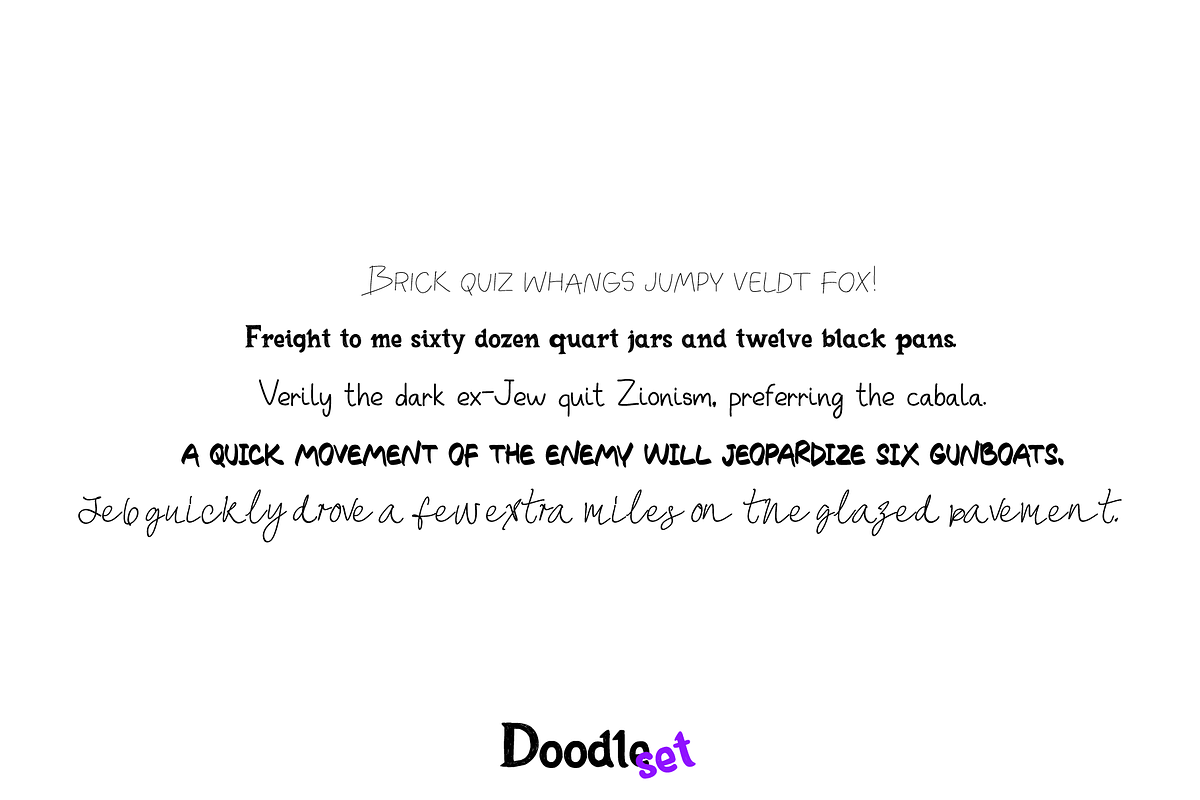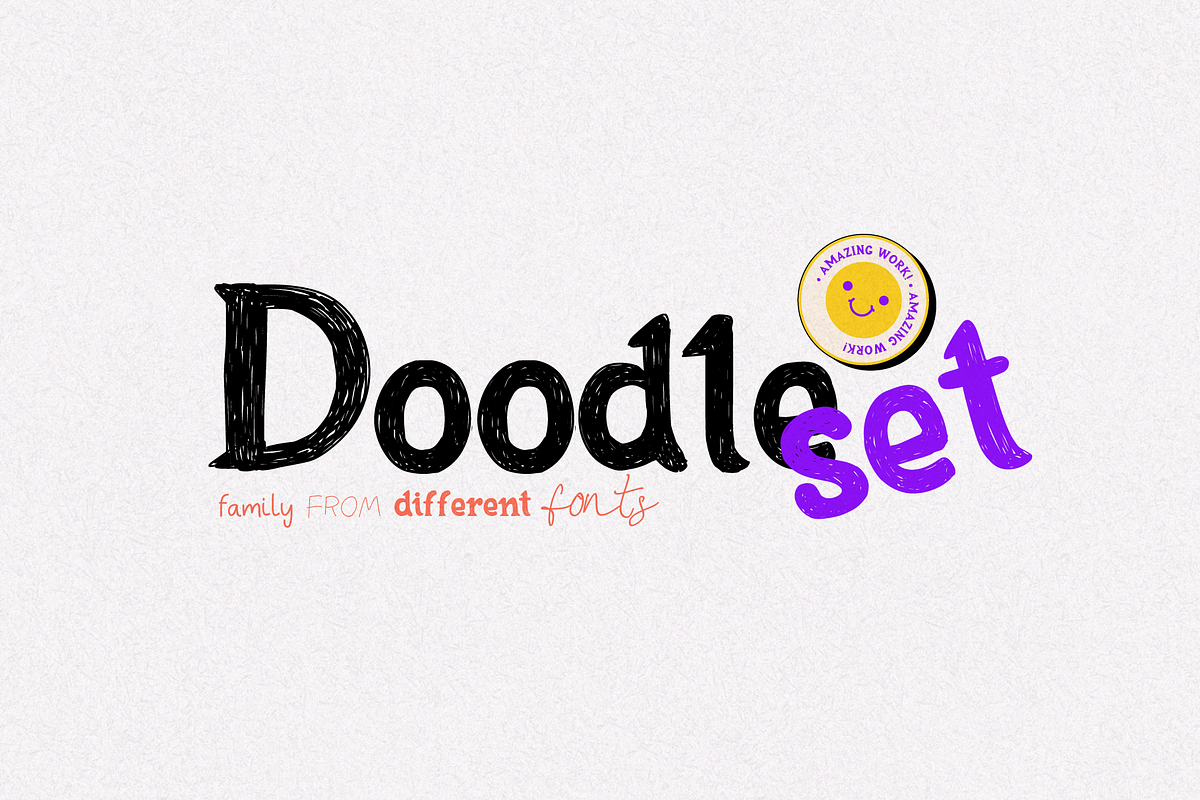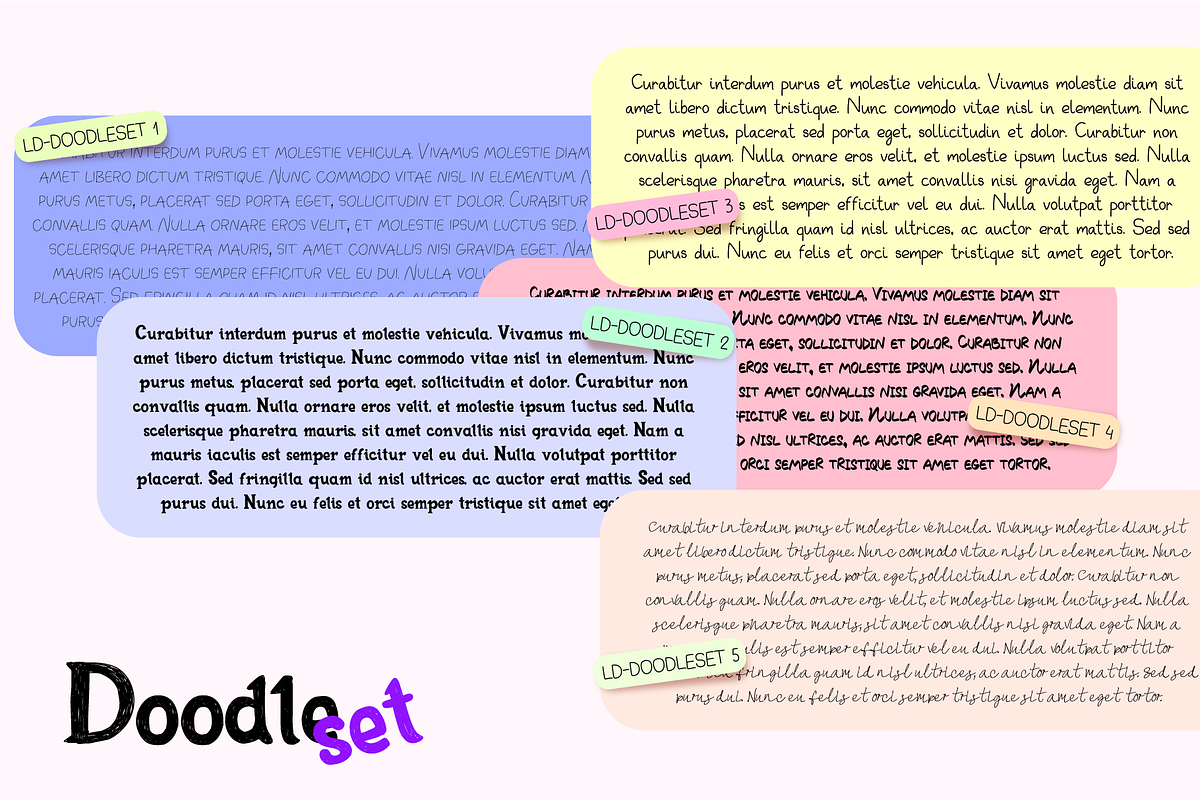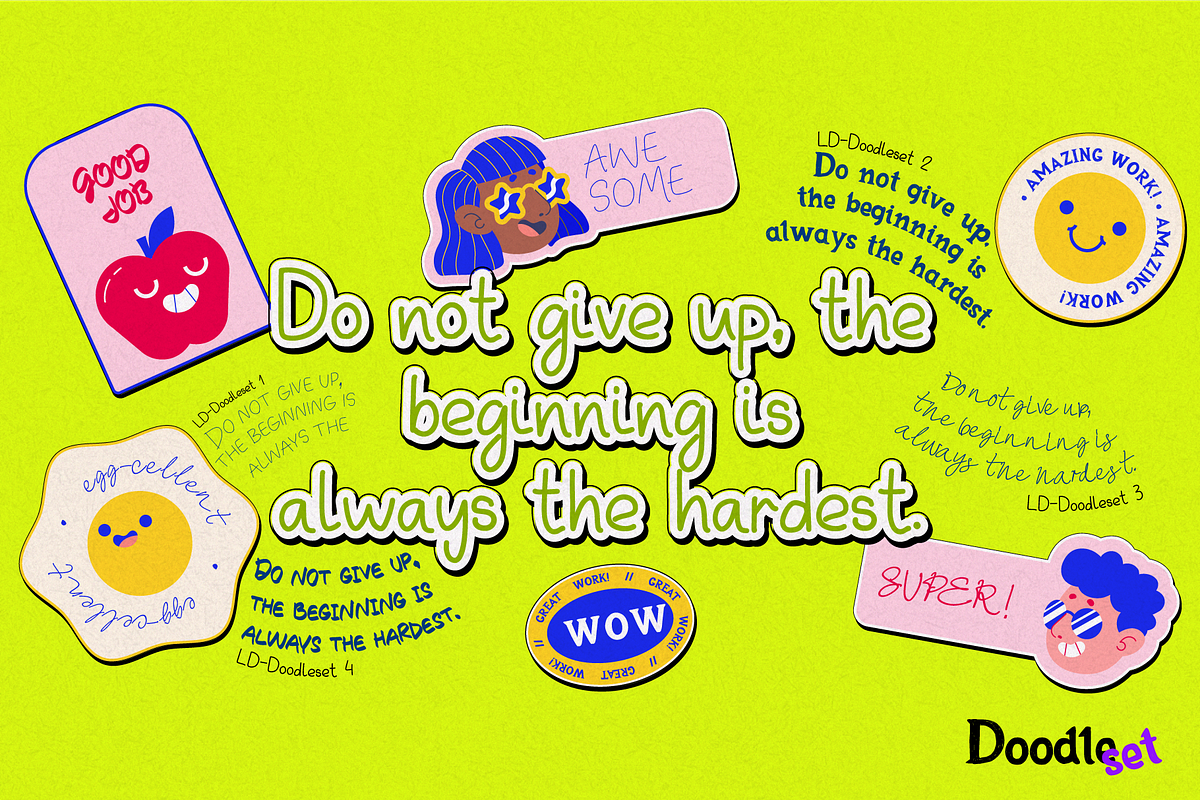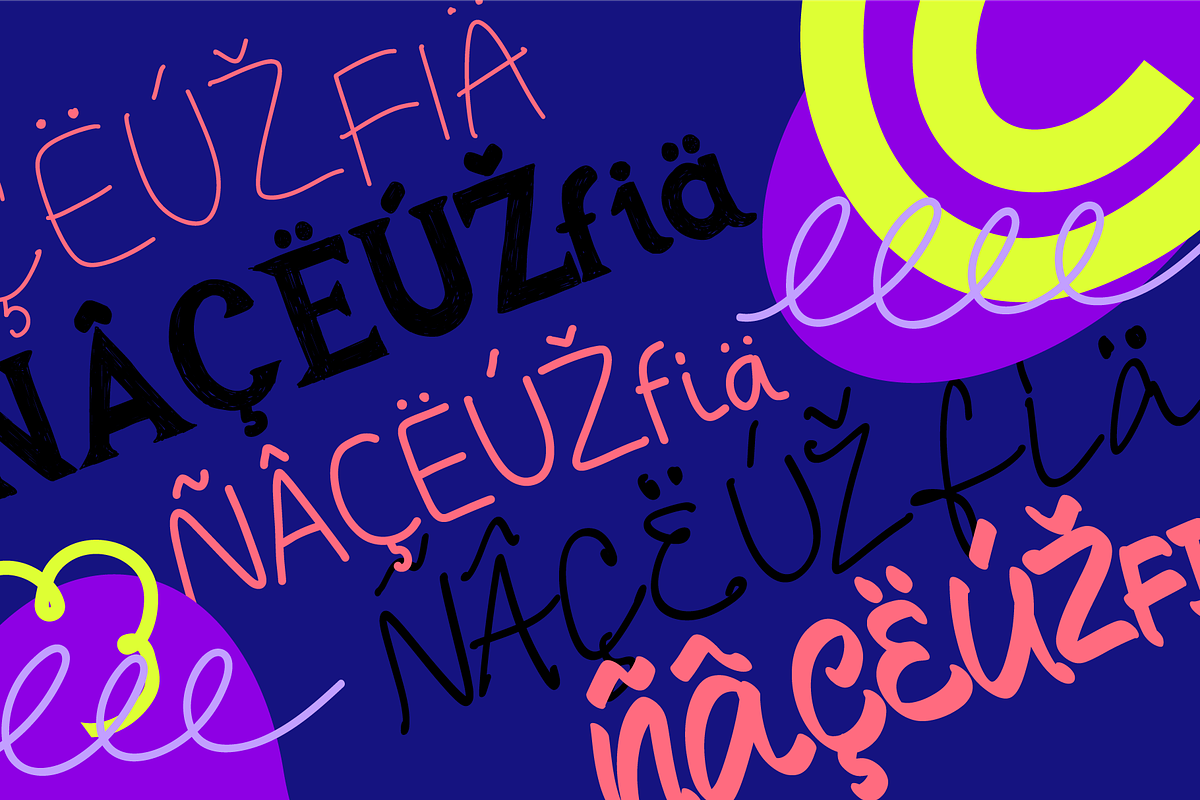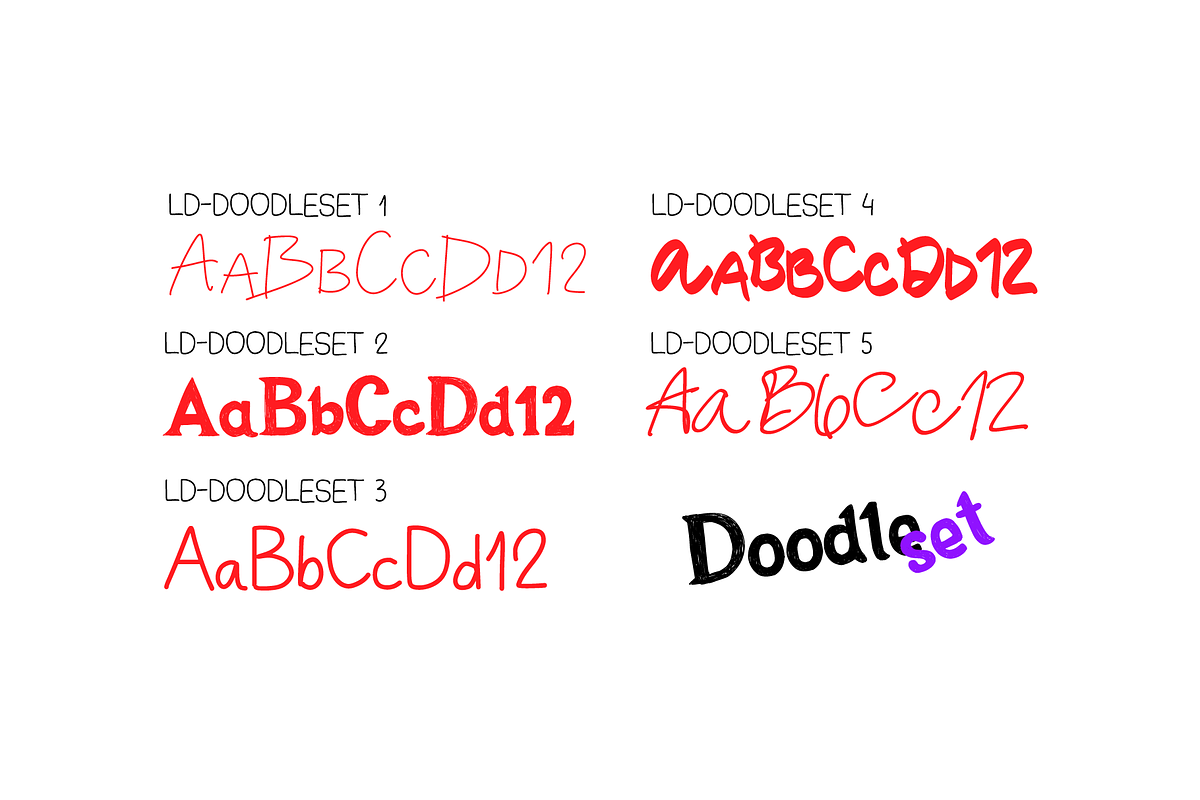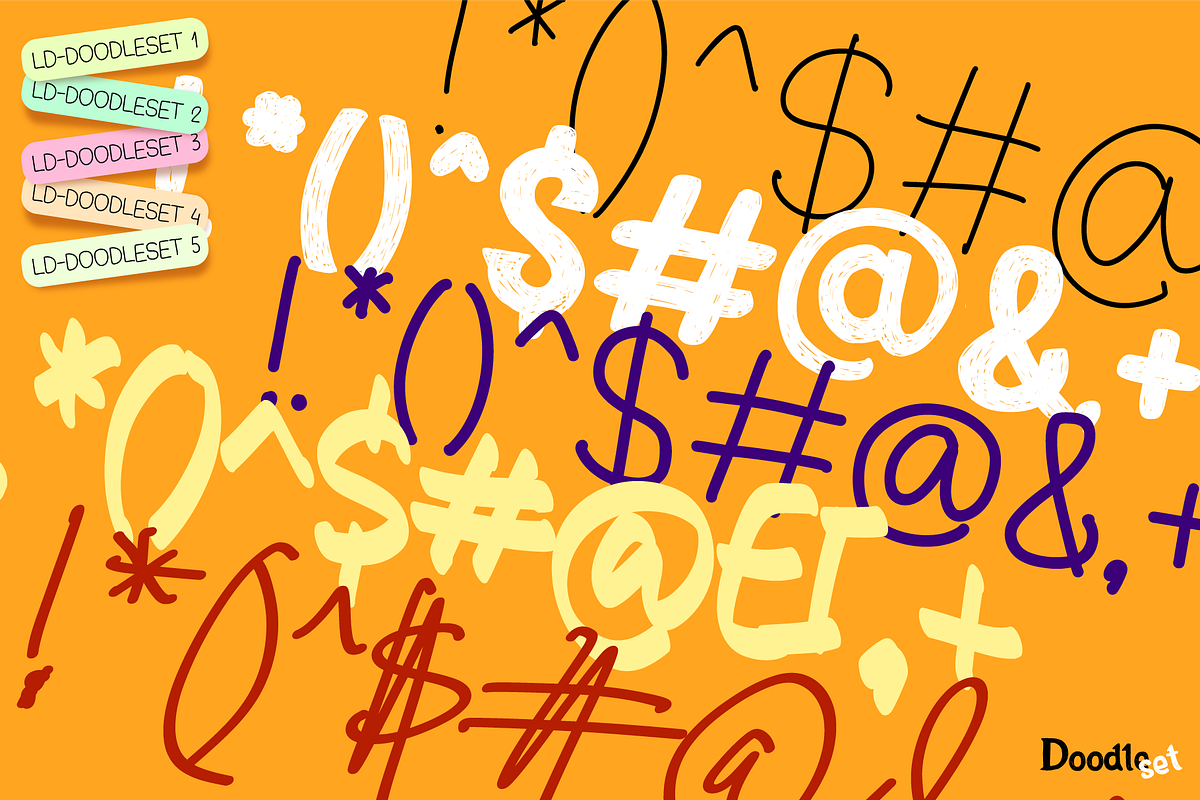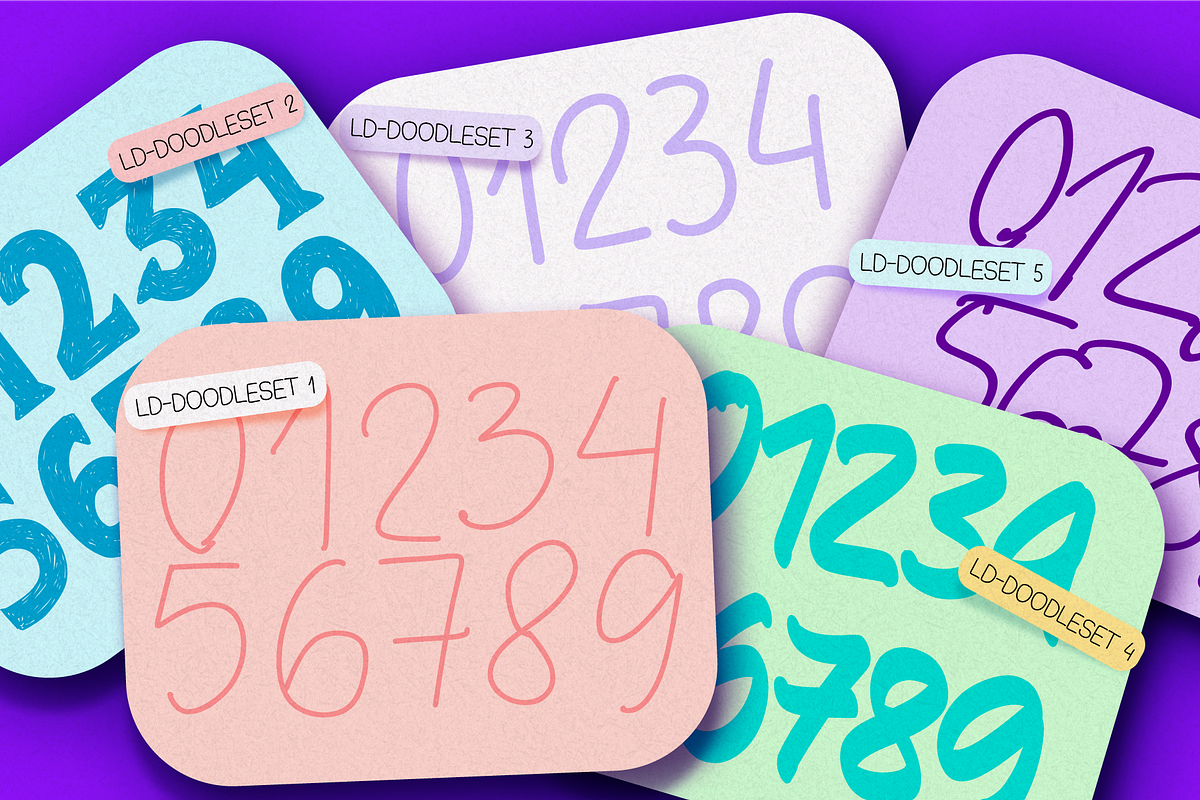
DOODLESET. Font Family.
Get ready to meet an unusual family of fonts - DOODLESET! Here, each typeface is like a hero with a unique story, creating an amazing assortment.
From designing inspirational quotes to designing advertisements and events, every font will become a tool for your ideas.
They allow you to add to your work without distracting from the main plot and without taking too much attention. They are like hidden clues that give atmosphere and structure.
This font family includes a variety of styles, from cursive to serifs and calligraphy. These fonts are ready to complement any project, from covers and posters to website designs and presentations, creating a harmonious composition.
Open the doors to the world of creativity with Doodleset.
- 5 OTF completely different fonts combined in one style
- Sans serif & Serif
- Calligraphy and Script
- Kerning